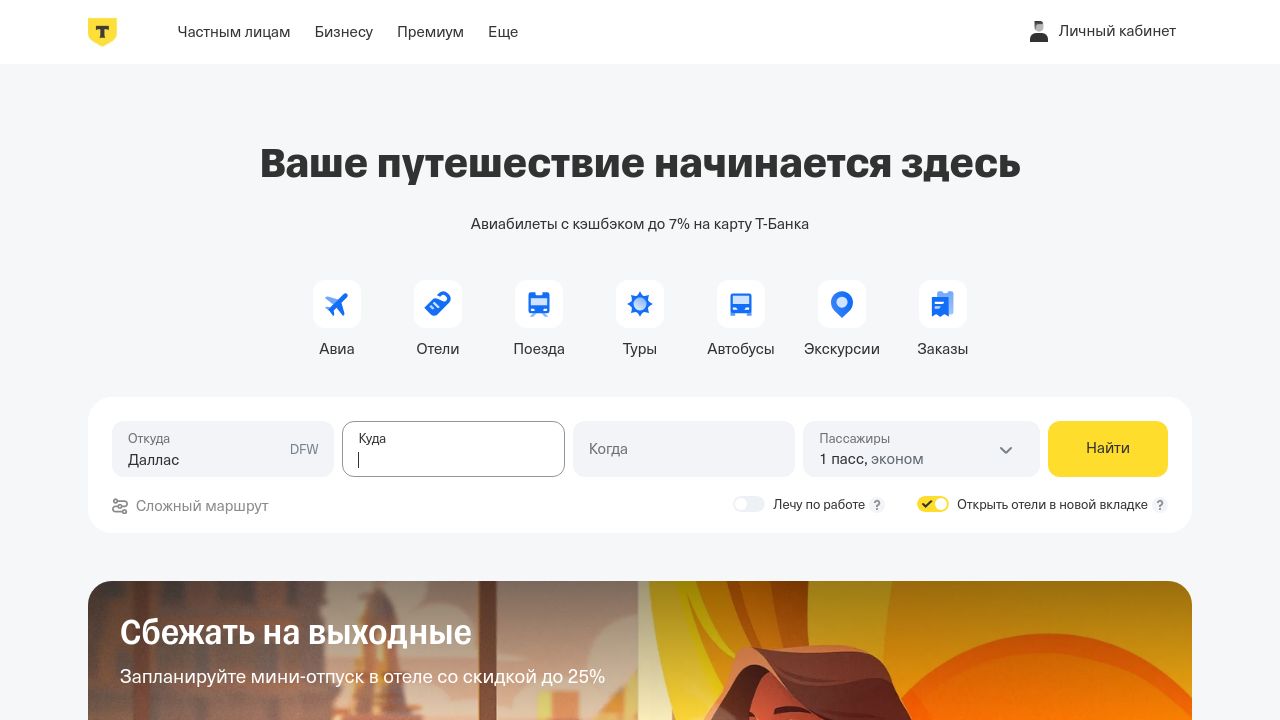
tbank.ru, a platform for travel bookings, leverages a unique blend of typography to enhance user experience. The primary fonts, including JetBrains Mono and Open Runde, reflect a commitment to clarity and accessibility, ensuring that users can navigate travel options effortlessly. TinkoffSans and Neue Haas Unica W1G contribute to a contemporary aesthetic, while the lighter weights of haas and pfhighway provide a subtle yet distinct visual hierarchy, crucial in guiding users through their travel plans.
font-family: 'dsHeading', sans-serif;font-family: 'dsText', sans-serif;These fonts are listed in the CSS as backups. The browser only falls back to them if the main fonts above fail to load.
tbank.ru utilizes a variety of custom fonts including JetBrains Mono, Open Runde, TinkoffSans, haas, pfhighway, and Neue Haas Unica W1G, ensuring a distinctive visual presentation.
TinkoffSans, used on tbank.ru, offers a clean and modern look. Compared to common fonts like Arial, it provides a more tailored experience, suitable for a travel-focused audience.
tbank.ru employs a range of font weights, including 400 for JetBrains Mono and Neue Haas Unica W1G, 700 for Open Runde, and lighter options like 100 for pfhighway, creating a dynamic text hierarchy.
In case the primary fonts are unavailable, tbank.ru defaults to Arial and Roboto, ensuring that the text remains legible and visually coherent across different devices.